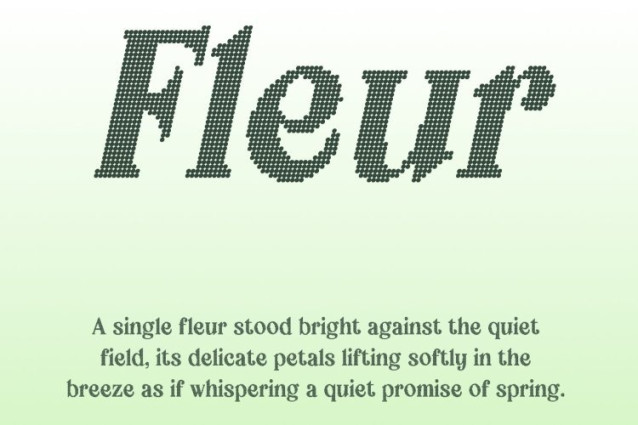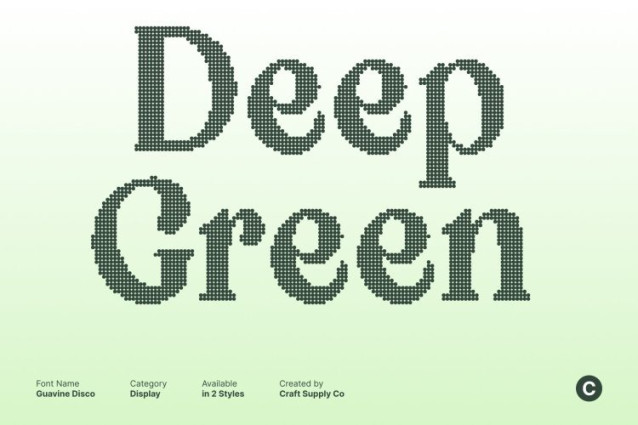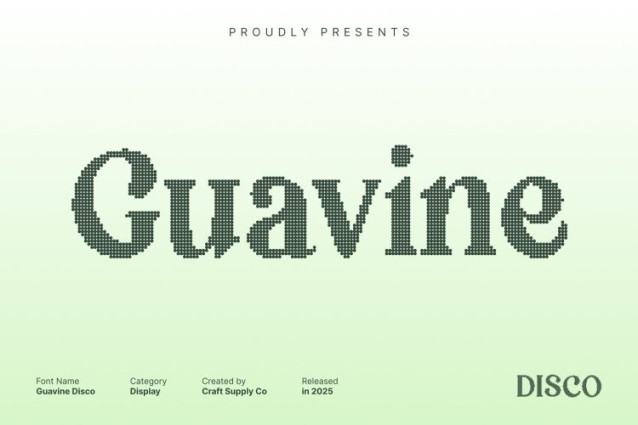
Guavine Disco Font
Guavine Disco Font Evoking the irresistible glamour of disco, this retro display serif font shines with bold curves, rhythmic detailing, and a vibrant sense of movement. Each letter carries a lively vintage flair, creating a sparkling visual presence that instantly captures attention and fills your design with energy and charisma.
Expressive Serif Shapes for Funky, Nostalgic Style
The decorative serif structure enhances its retro personality, blending classic shapes with a funky, expressive twist. This unique combination makes the font feel both nostalgic and stylish, ideal for projects that want to radiate retro charm while staying visually bold and modern.
Perfect for Party Posters, Branding, and Energetic Headlines
Whether you’re designing party posters, nostalgic branding, album covers, event promotions, or funky headlines, this font adds a dazzling touch that transforms ordinary layouts into vibrant visual experiences. Its striking shapes ensure instant impact, making it perfect for display purposes.
Playful, Bold, and Full of Retro Spark
With its disco-inspired shine and vintage serif form, this font offers a lively typographic voice that stands out across creative projects. It’s the ideal choice for designers seeking a typeface that feels fun, expressive, and irresistibly retro perfect for any design that wants to dance with personality and style.